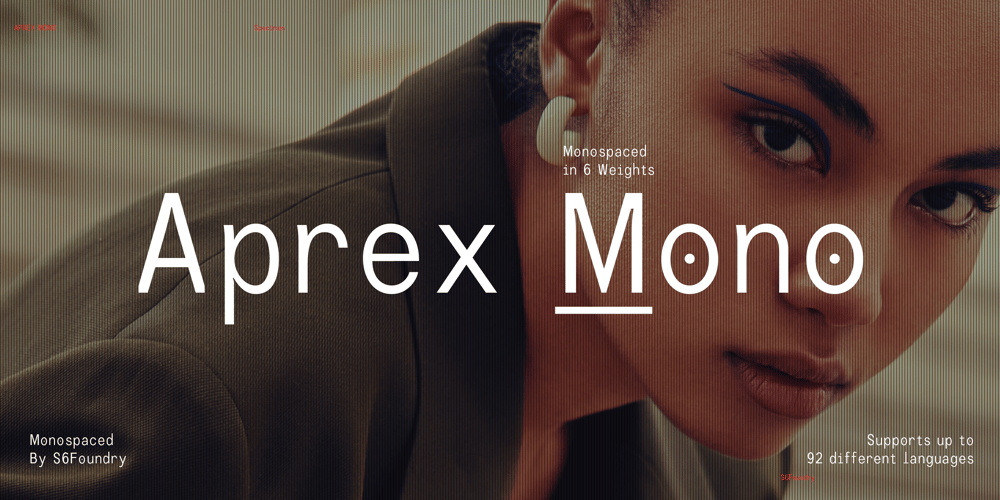
Aprex Mono
Aprex Mono font
Aprex Mono Font Family was designed by Paul Henry Robb and published by S6 Foundry. Aprex Mono contains 6 styles and family package options. Aprex Mono is a Mono spaced stylized industrial version of the Aprex Sans typeface, with multilingual support. The font is inspired by a basic sans serif glyphs structure, concerning the balance and optimization that bring a clean typeface, versatile for both display and body text use ideal for adding a touch of style to your creations and layouts!​​​​​​​